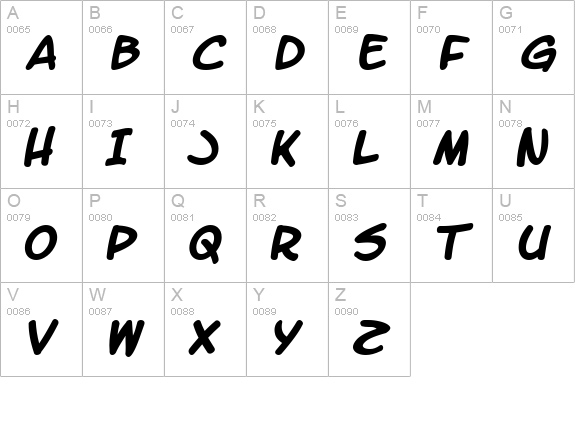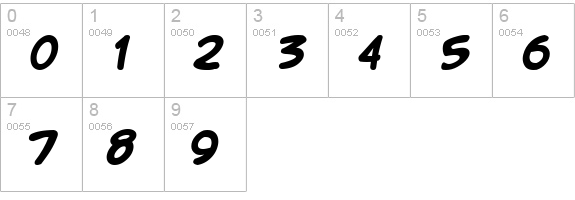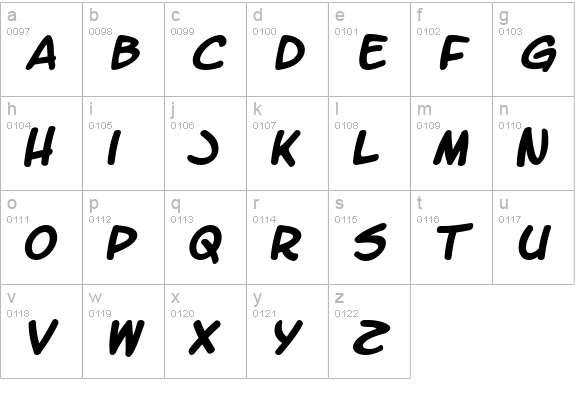
LetterOMatic! Bold is a strong, high-contrast variant in the LetterOMatic! typeface family \xE2\x80\x94 well suited to headlines, attention-grabbing titles, and strong calls-to-action.
Introducing LetterOMatic! A stunning and versatile font that will surely catch everyone's attention. With its bold and eye-catching design, this font is perfect for creating impactful headlines, titles, logos, and more. LetterOMatic offers a unique blend of modern and classic elements, making it suitable for a wide range of projects. Whether you're designing a website, creating advertising materials, or crafting invitations, this font will add a touch of elegance and sophistication to your work. But what makes LetterOMatic even more incredible is that it's absolutely free! Yes, you read that right. This amazing font is freely available to download at FontsMarket.com. You can now enhance your designs without spending a dime. With its smooth curves and clean lines, LetterOMatic ensures legibility and readability across various mediums and sizes. It is carefully crafted to provide a seamless and professional look, making it an excellent choice for both print and digital designs. Don't miss out on this incredible opportunity to elevate your design game with LetterOMatic. Download it for free today at FontsMarket.com and start creating stunning visuals that will leave a lasting impression on your audience. Get ready to make a bold statement with LetterOMatic!